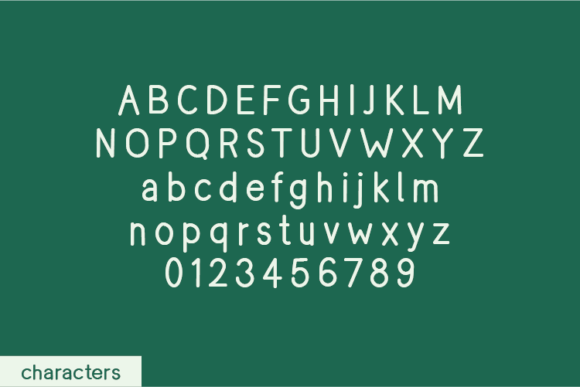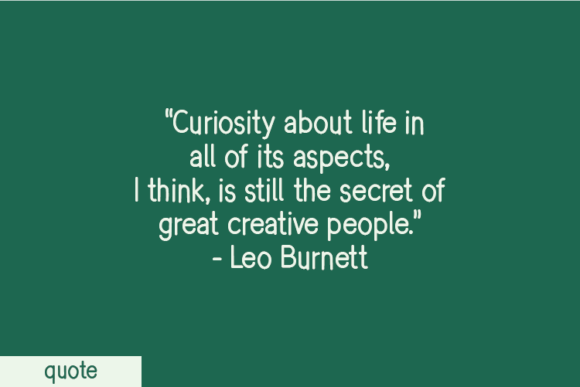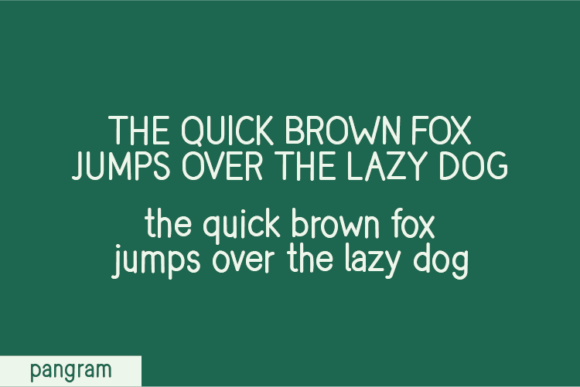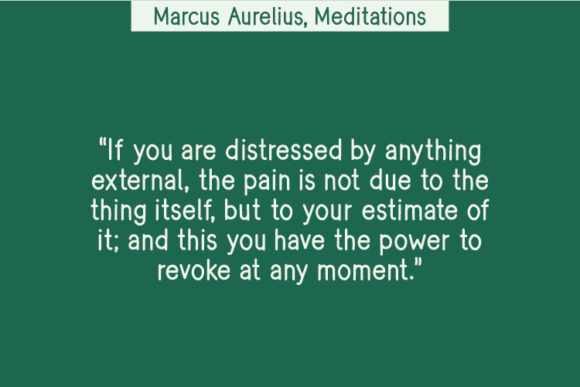
Evergreens Font
About Evergreens Font
The Evergreens Font Download brings an authentic handwritten style with a natural look. The font was created without changing any nodes in the characters, which gives it a raw and original rhythm. This design choice makes Evergreens stand out and gives it a handcrafted charm that feels genuine and unique.
Because of its simple yet artistic flow, Evergreens works well in projects that need personality and warmth. You can use it for quotes, notes, t-shirt designs, posters, packaging, and stationery. Its strokes feel casual but remain easy to read, so your designs always keep a professional touch.
Features of Evergreens Font
When you download the Evergreens Font, you will notice features that make it flexible and easy to use:
• Natural handwritten strokes with authentic flow
• Characters designed without altered nodes for originality
• Uppercase, lowercase, numbers, and punctuation included
• Readable style that balances creativity with clarity
• Adaptable for print and digital projects
Best Uses for Evergreens Font
The Evergreens Font Download fits many creative ideas. For example, it adds a handwritten vibe to inspirational quotes. It also looks great on t-shirts, tote bags, or merchandise. If you want to give cards, planners, or journals a personal style, Evergreens works perfectly. In addition, it improves product packaging, posters, logos, and branding by adding a touch of originality.
Why Choose Evergreens Font
Designers choose the Evergreens Font Download because it focuses on authenticity rather than polish. The raw strokes highlight its handcrafted style and create a real human touch. This makes the font especially useful for projects that aim to connect with people on a personal level.
Unlike generic handwritten fonts, Evergreens blends creativity, clarity, and individuality. As a result, it stays versatile for casual designs and professional branding alike.
The Evergreens Font Download offers a natural handwritten look with authentic strokes and wide creative use. With its raw charm and handcrafted beauty, it is perfect for quotes, apparel, packaging, stationery, and more.